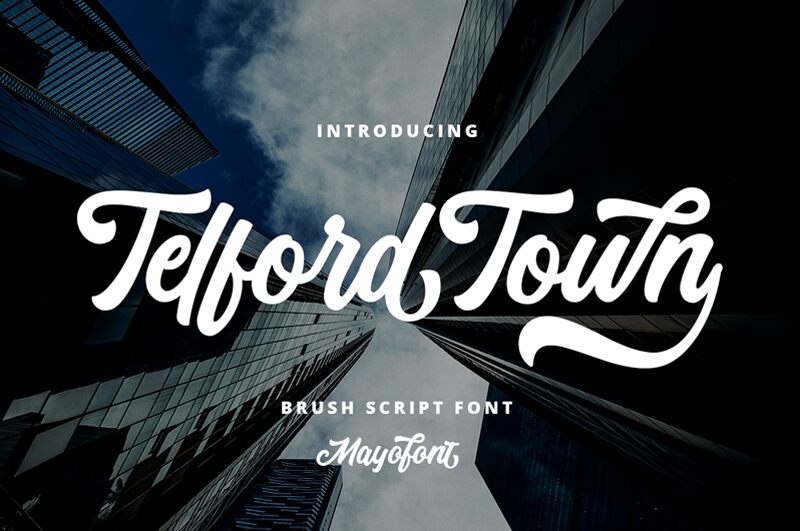
Telford Town Regular
Telford Town font is a free brush font from Mayofont with casual script elements and smooth flowing style. The modern aesthetic of the letters makes them readable and approachable which will bring an inviting feel to your next projects.
Use this font in book cover designs, novel title pages, art magazines, fashion magazines, posters, greeting cards, journals or personal blogs. Telford Town will also fit educational booklets as well as business card designing.